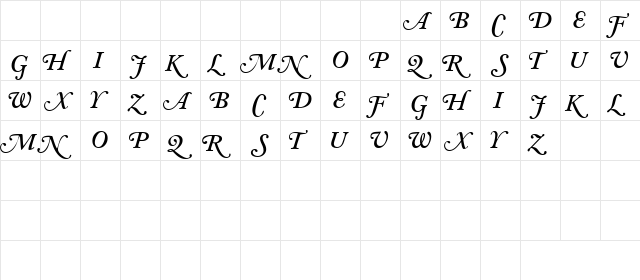
CaslonSwashCapsSSK SemiBoldItalic
Design Context for CaslonSwashCapsSSK Typeface
CaslonSwashCapsSSK flows with the natural rhythm of handwritten lettering, making it ideal for designs that call for warmth and personal expression. The heavy weight commands attention and anchors typographic hierarchies.
Font Pairing: Combine CaslonSwashCapsSSK with a simple geometric sans for maximum contrast — the tension between flowing curves and clean structure is a classic typographic pairing.
Pro Tip: Use CaslonSwashCapsSSK for short runs of text — names, titles, or taglines. Extended body copy in script faces tires the eye quickly.